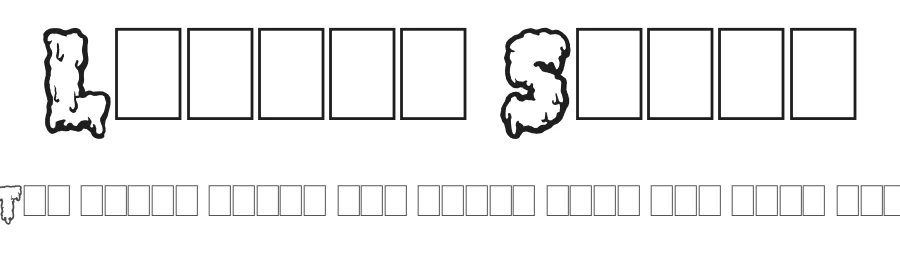
About Monsterchild Font
| Designer | Dr.Ead |
Monsterchild Font is a decorative font that shines as a display or heading face. Pair it with a clean sans-serif or serif font for body text β the contrast creates a clear hierarchy while the two styles stay balanced and easy to read.
Monsterchild Font
Monsterchild Font is a decorative typeface by Dreadful Productions, ideal for logos, invitations, branding, and creative projects.